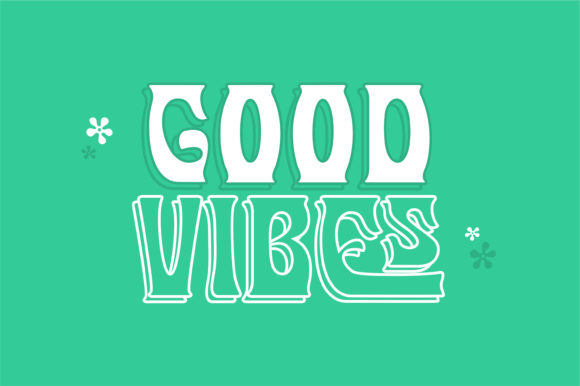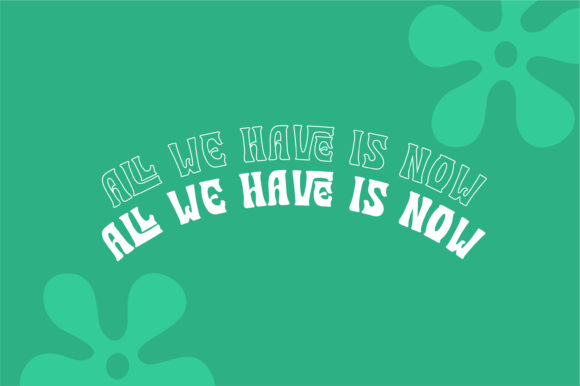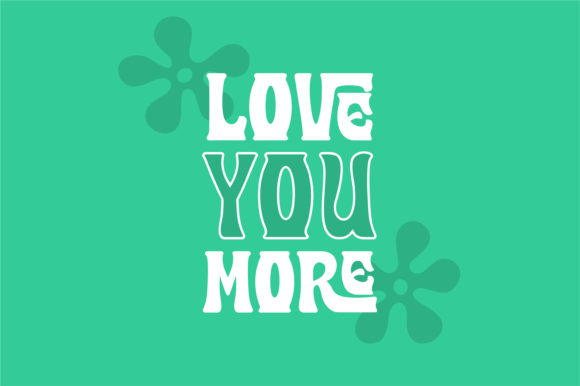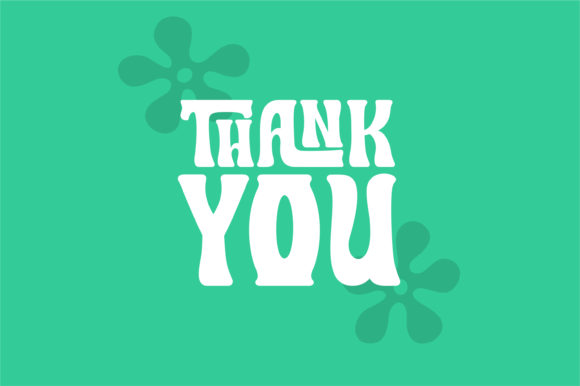
Introduction to Lovecraft Font
Lovecraft is a retro display font featuring a regular solid and an outline version.
Lovecraft is perfect for branding, logos, social media quotes, stickers, posters, vintage designs, wall art, and more This font is PUA encoded, which means you can access all of the glyphs and swashes with ease.